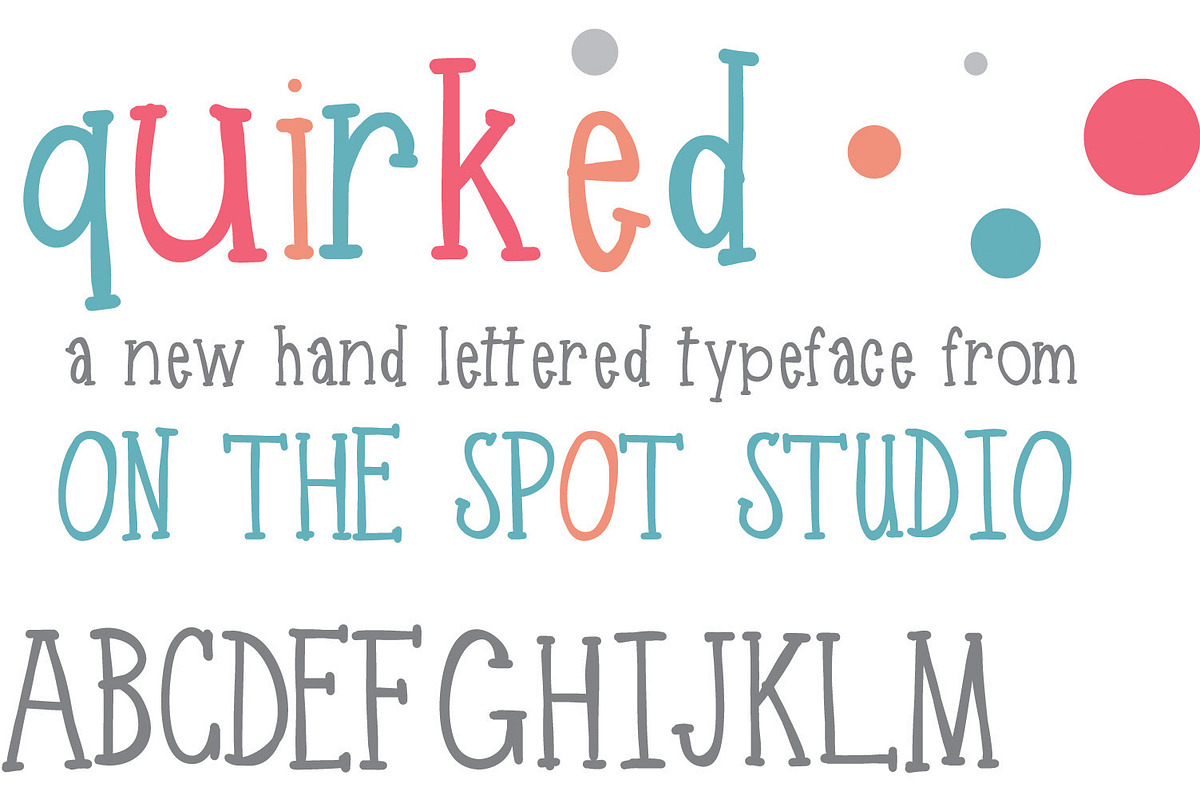
Quirked Handlettered Typeface
Quirked Handlettered Typeface by OnTheSpotStudio is a font selected for branding, posters, packaging, typography.
Why Quirked Handlettered Typeface is worth a look
Quirked Handlettered Typeface by OnTheSpotStudio fits naturally into Branding, posters, packaging, typography.